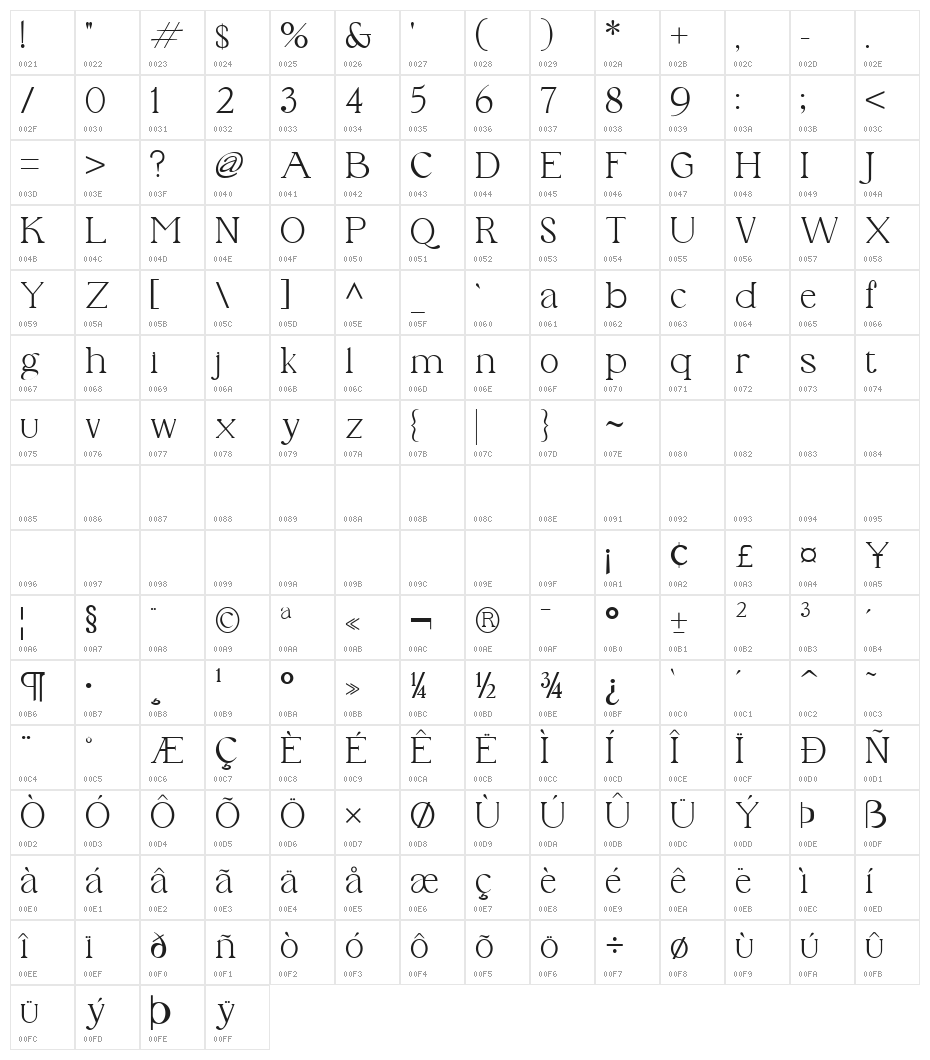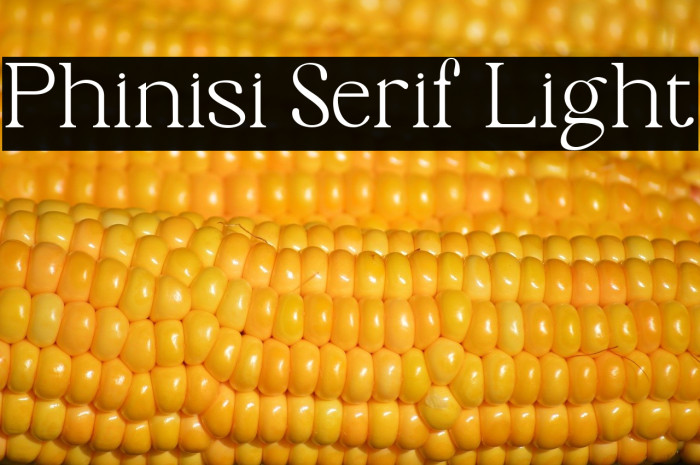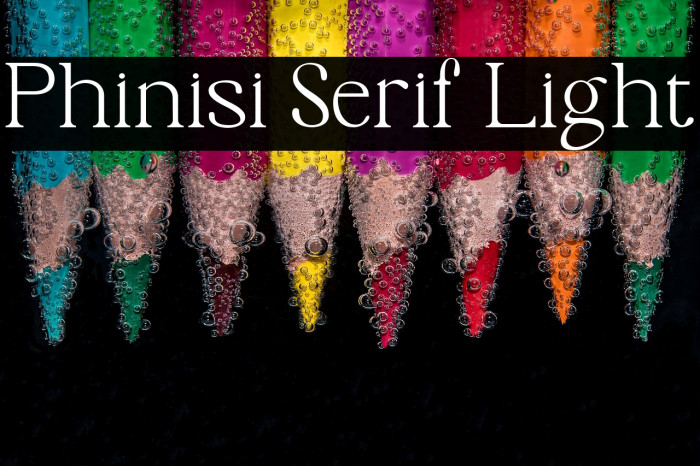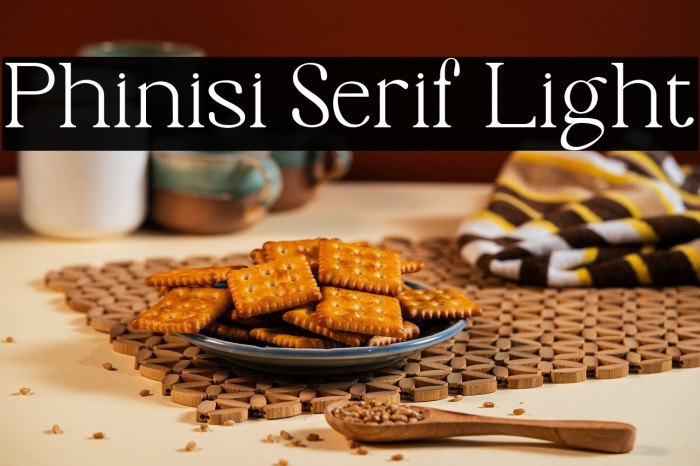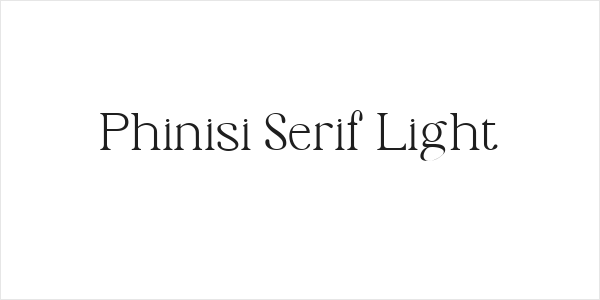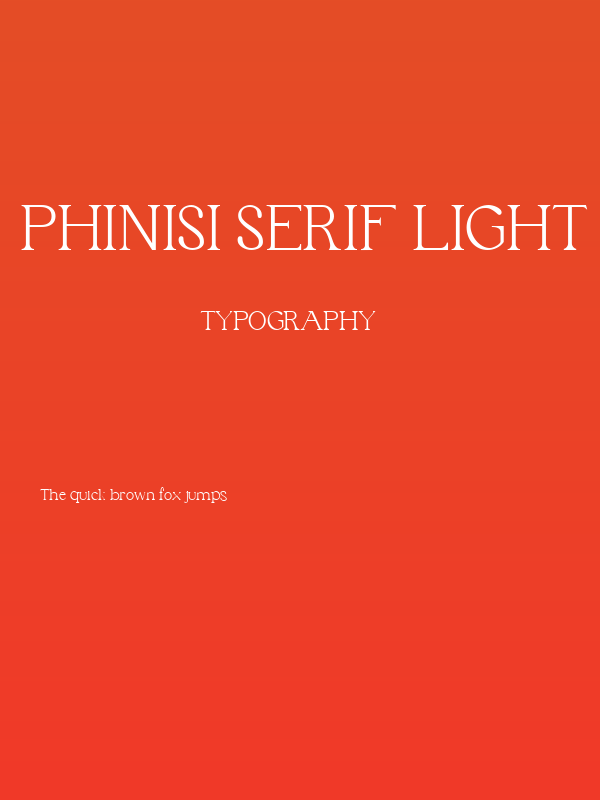
Phinisi Serif Light Font
Phinisi Serif Light Description
This font features a refined and elegant serif style with a light weight, offering a sophisticated and classic appearance. The characters are well-proportioned with a slight contrast in stroke thickness, giving it a graceful and airy feel. The serifs are delicately crafted, adding a touch of tradition and formality. The overall design maintains a balance between readability and aesthetic appeal, making it suitable for both digital and print media. The numerals and special characters are consistent with the letterforms, ensuring a cohesive look across all text elements.
| Proposed Projects | Ideal for editorial design, book covers, formal invitations, and branding projects that require a touch of elegance and tradition. |